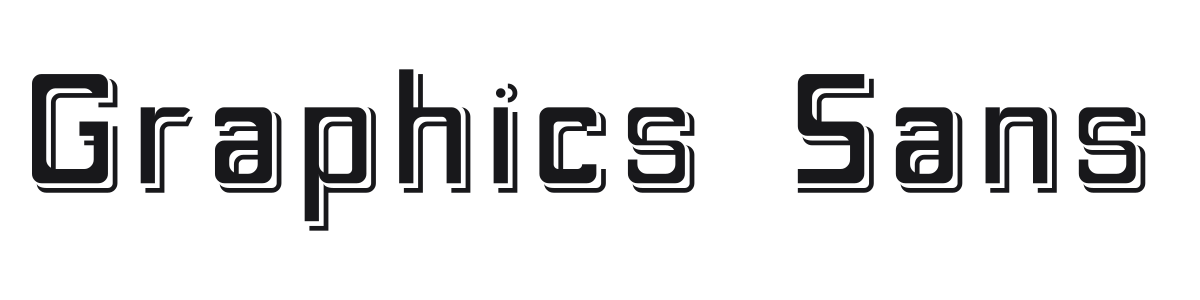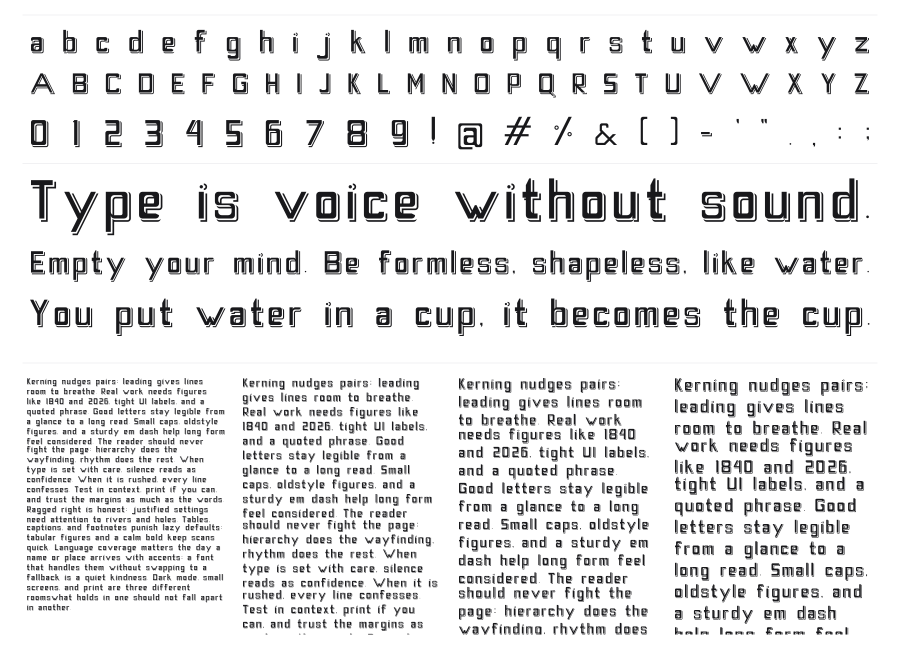
Graphics Sans
by Billy Robert
Graphics Sans is a bold condensed sans-serif built around a layered inline outline effect that gives each character a stacked, three-dimensional quality. The uniform stroke weight and lightly rounded corners lean retro without being explicitly period-specific. It draws attention at large sizes and suits headline work with a graphic, almost hand-lettered energy.